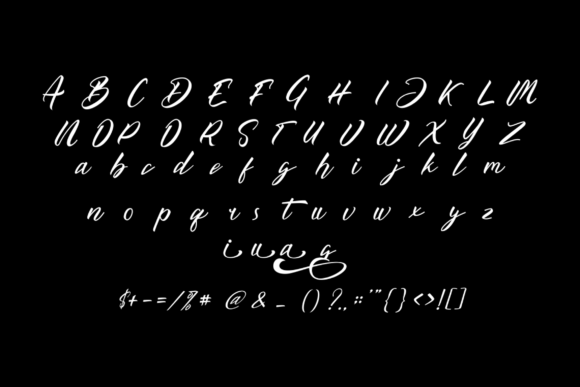
The Sweet Charm of Biataga Font: A Designer’s Delight
I’ll never forget the time I was working on a wedding invitation project, and my client asked for a font that was both elegant and playful. I scoured the internet, trying out font after font, but nothing seemed quite right. That was until I stumbled upon Biataga Font. This sweet and cursive handwritten font has been a game-changer for me, and I’m excited to share its charm with you! ✨
An Honest Review of Biataga Font
- ✨ Sweet and feminine: Biataga Font has a gentle, whimsical quality that adds a touch of romance to any design.
- ✅ Highly versatile: This font can be used for a wide range of projects, from branding and logos to wedding invitations and greeting cards.
- 💕 Elegant yet casual: Biataga Font strikes the perfect balance between sophistication and playfulness, making it perfect for designs that need a bit of flair.
While Biataga Font is an amazing addition to any design project, there are a few things to keep in mind: 🤔
- ⚠️ Limited use in small sizes: Due to its intricate details, Biataga Font can become a bit blurry when used in very small sizes. It’s best to use it at larger sizes (around 20pt or higher) for optimal results.
- ⚠️ Not ideal for body text: While Biataga Font is beautiful, it’s not the most readable font for long blocks of text. Stick to using it for headings, titles, or short paragraphs.
A Practical Guide to Using Biataga Font
The Designer Inspiration Behind Biataga Font
Biataga Font was designed with the intention of creating a beautiful, handwritten font that captures the essence of elegance and playfulness. The designer aimed to create a font that would be perfect for a variety of design projects, from wedding invitations to branding and logos. With its sweet, cursive lines and gentle feel, Biataga Font is sure to bring a touch of joy and romance to any design.
Q: What type of projects is Biataga Font best suited for?
A: Biataga Font is perfect for a wide range of projects, including branding, logos, wedding invitations, greeting cards, fashion designs, and more!